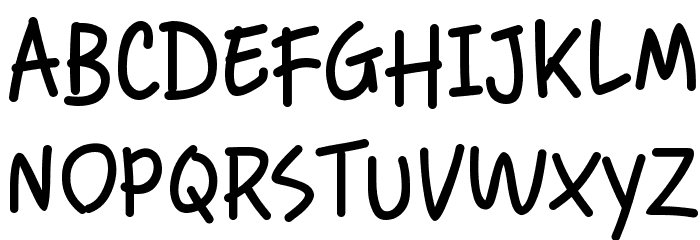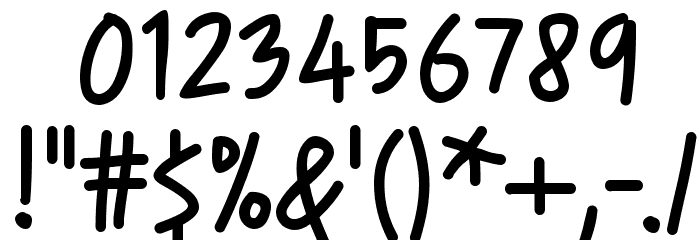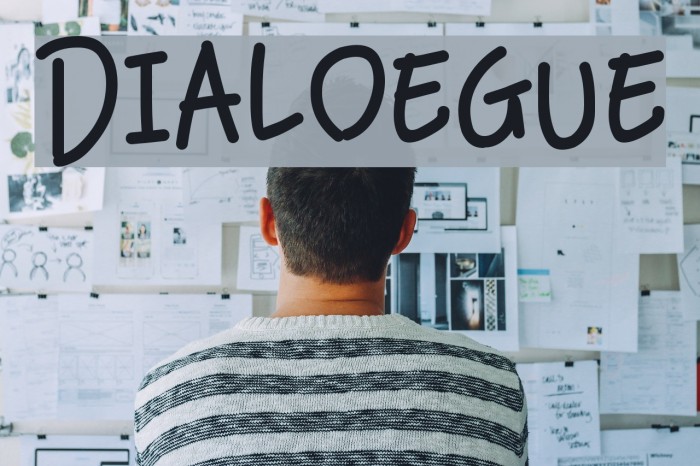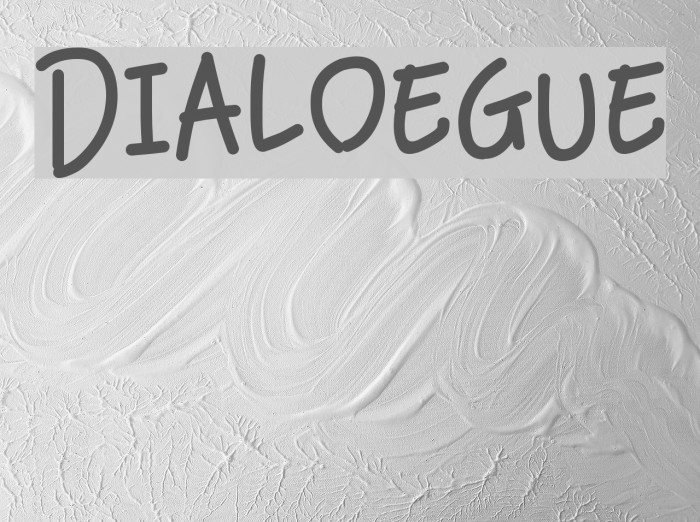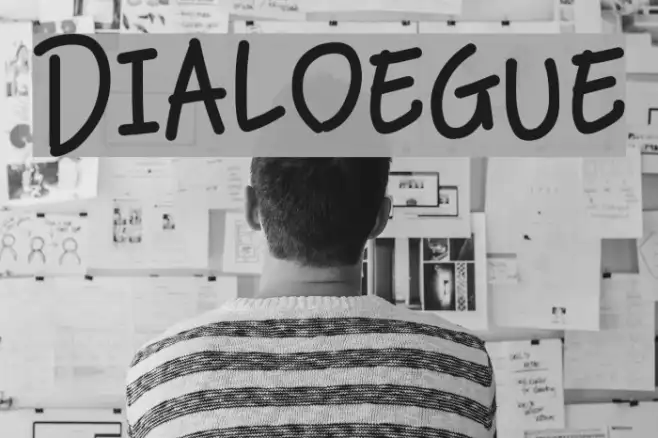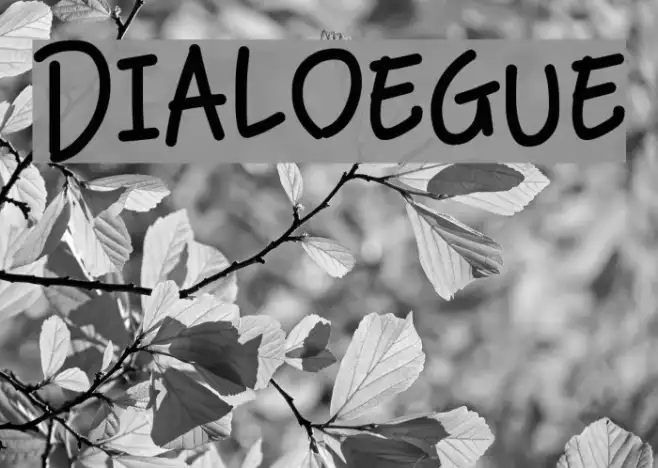
Dialoegue Font
This font features a playful and informal handwritten style, characterized by its smooth and rounded letterforms. The strokes are consistent in width, giving it a uniform appearance that enhances readability. The letters are slightly slanted, adding a dynamic and lively feel. The font includes both uppercase and lowercase letters, numbers, and a variety of special characters, making it versatile for different uses. Its casual and friendly appearance makes it suitable for projects that require a personal touch.
A playful handwritten font with smooth, rounded letterforms and a casual style.
- Proposed Projects: Ideal for greeting cards, children's books, personal blogs, and informal branding.
- Overall Style: Casual
- Use Case: Headlines, Informal text, Personal projects